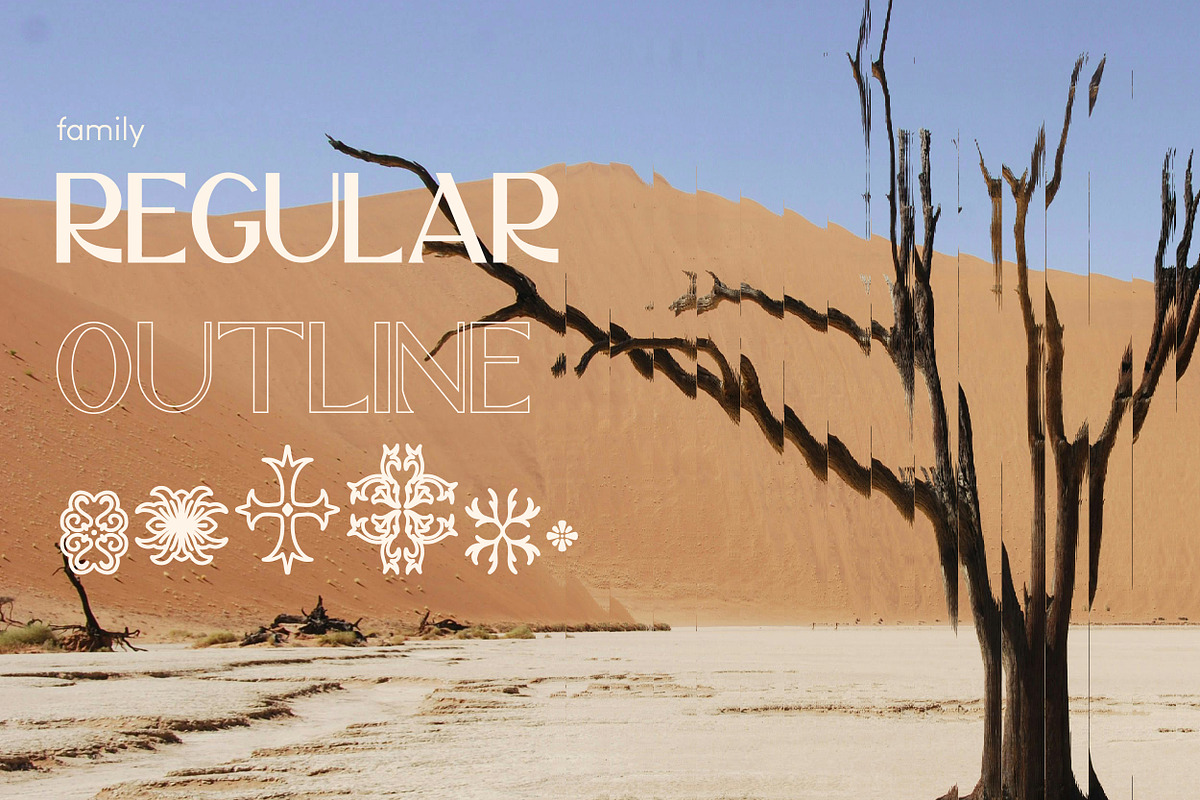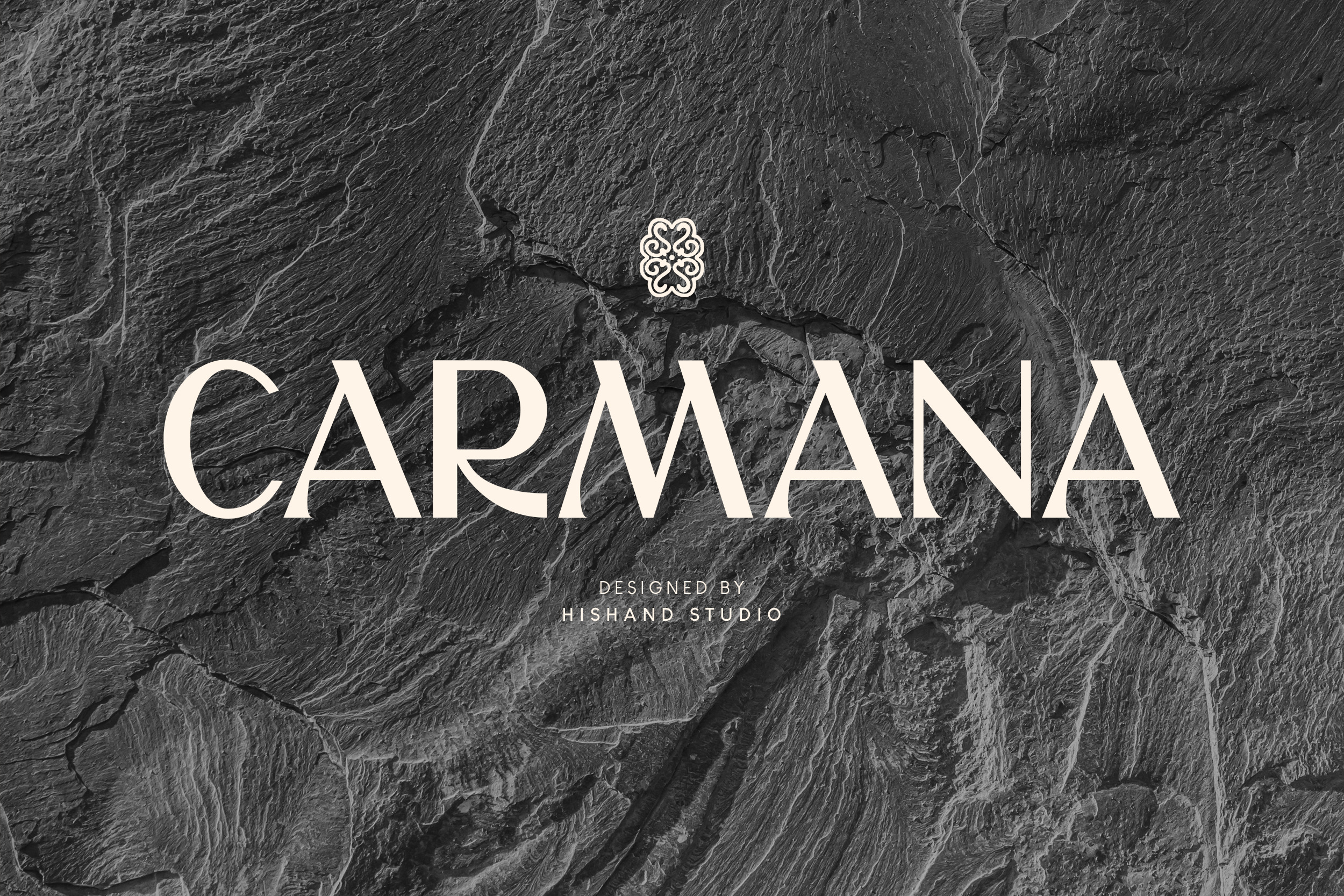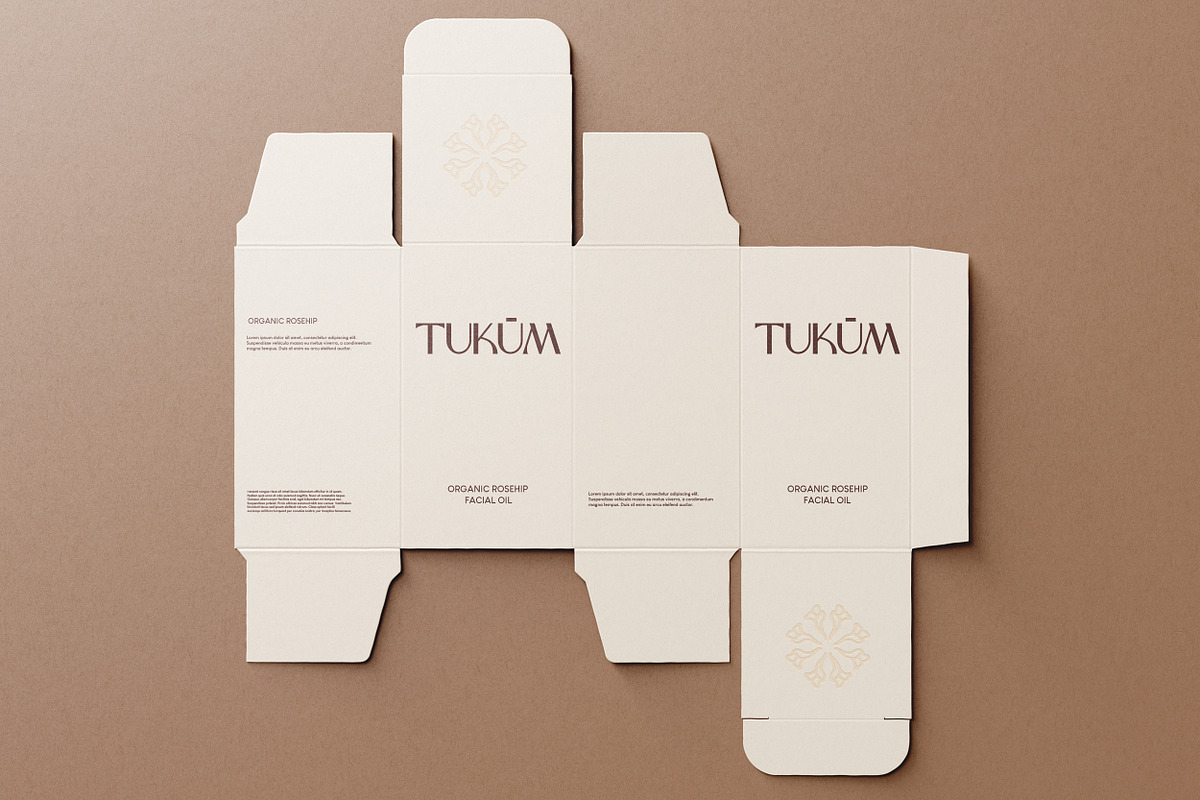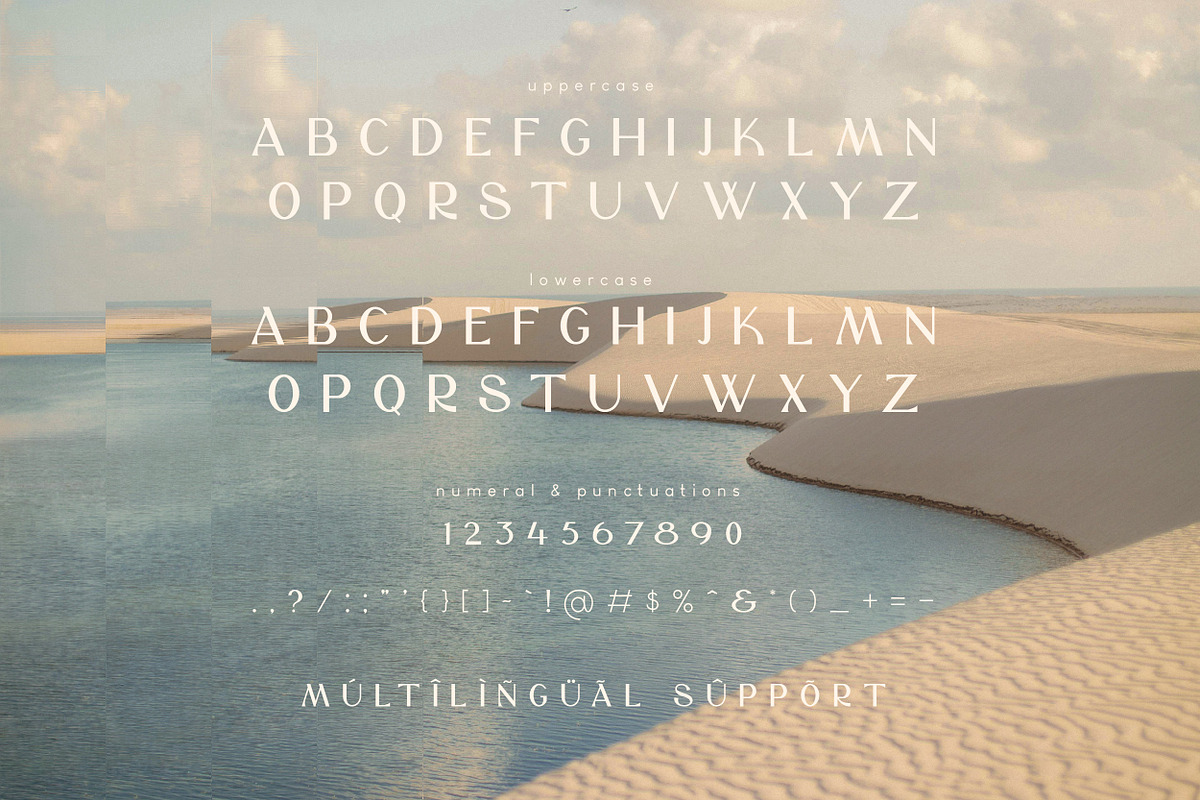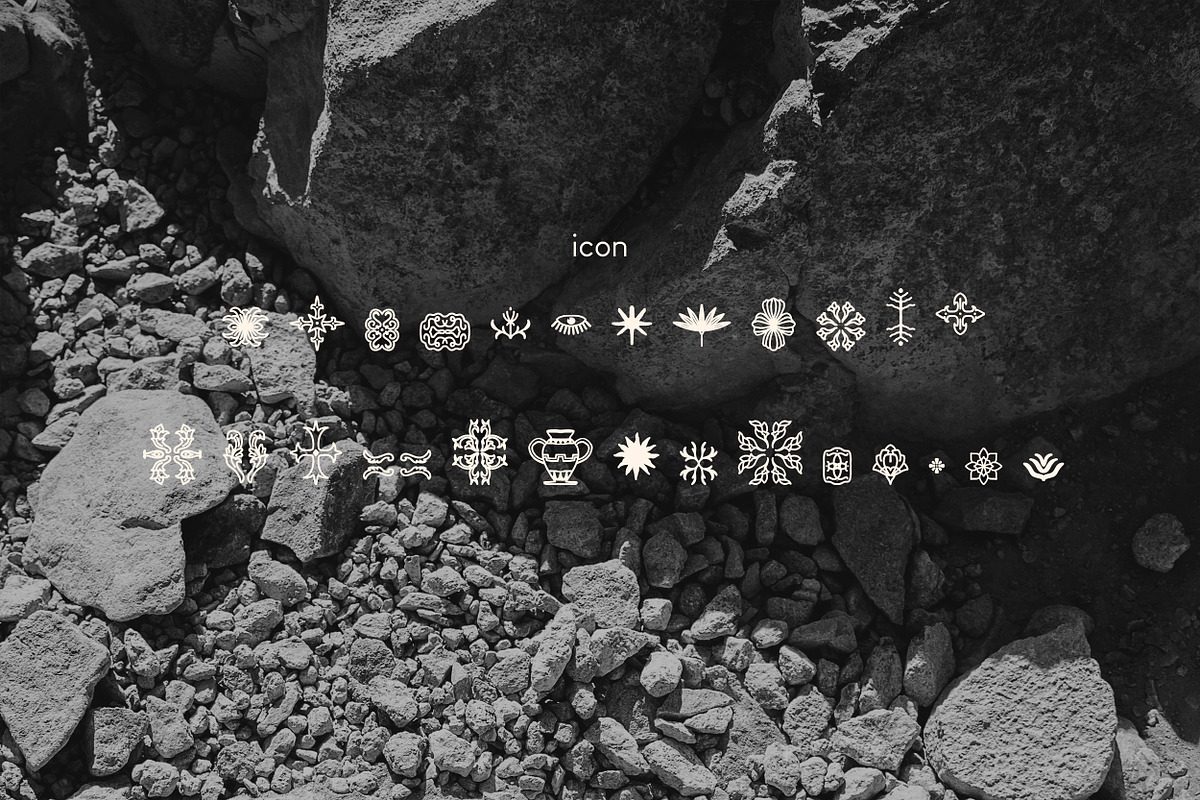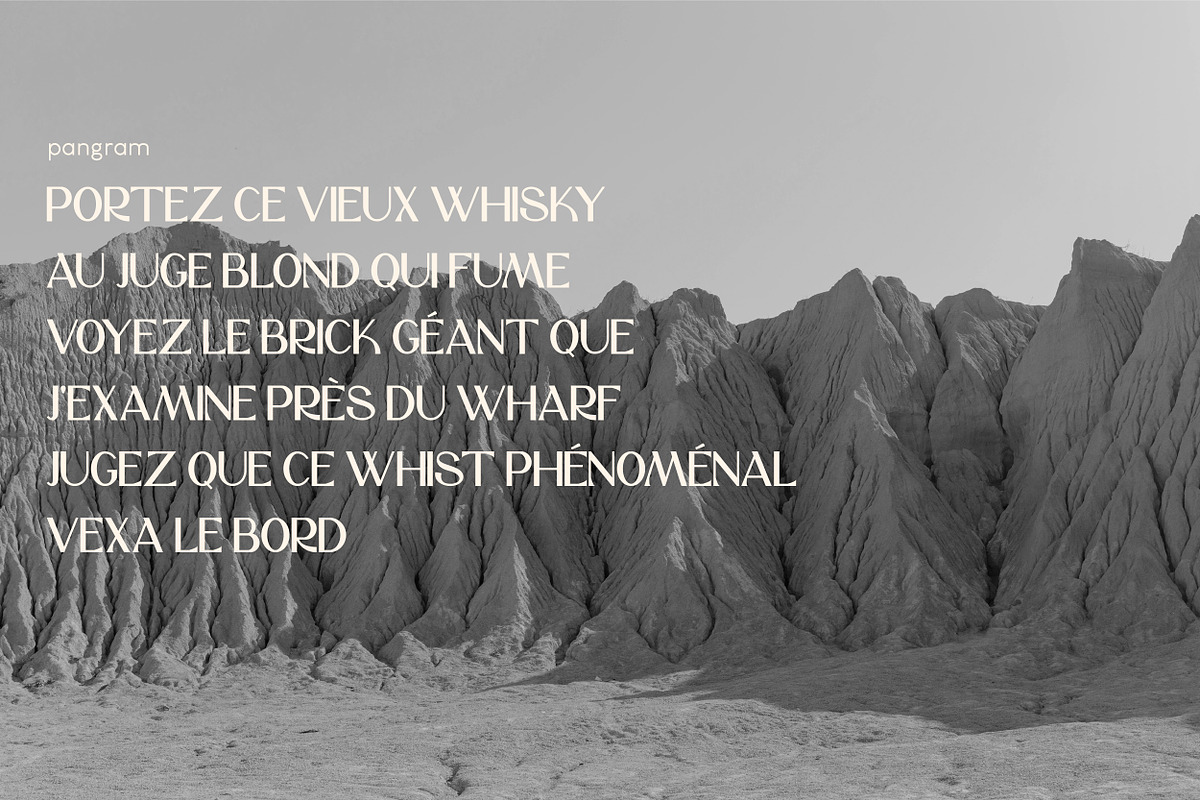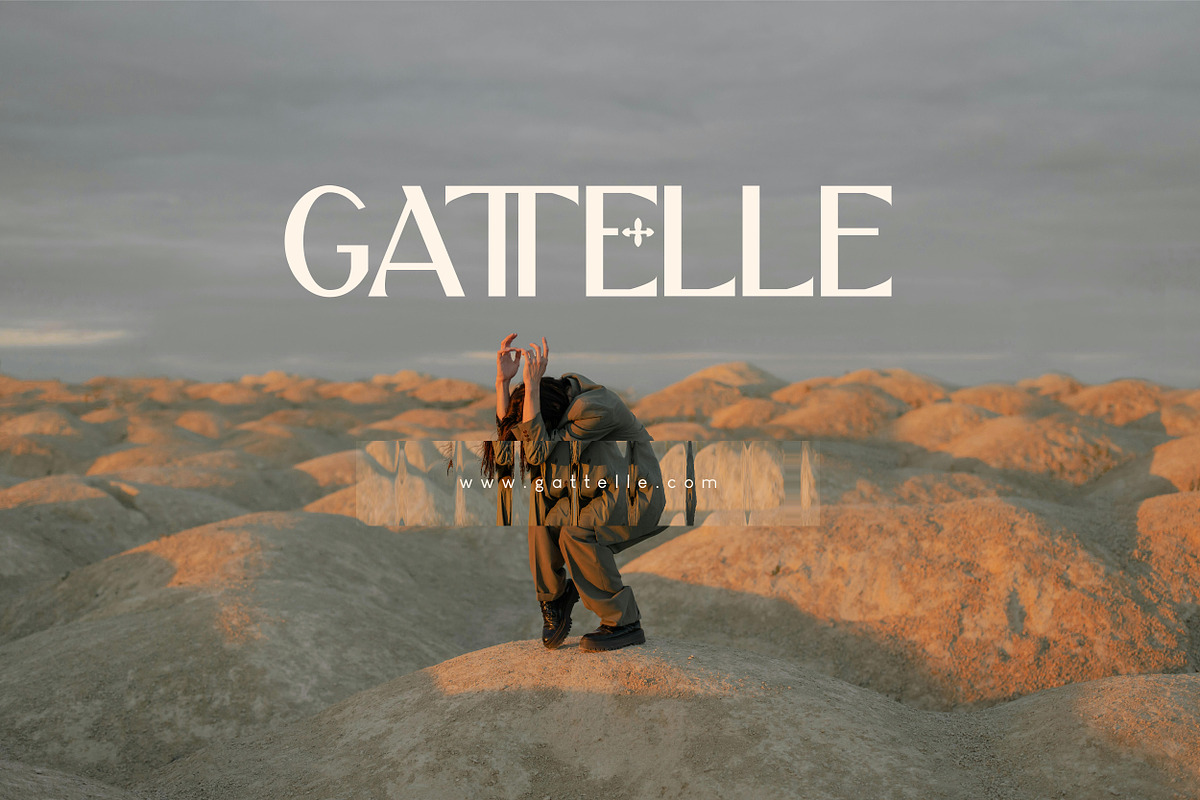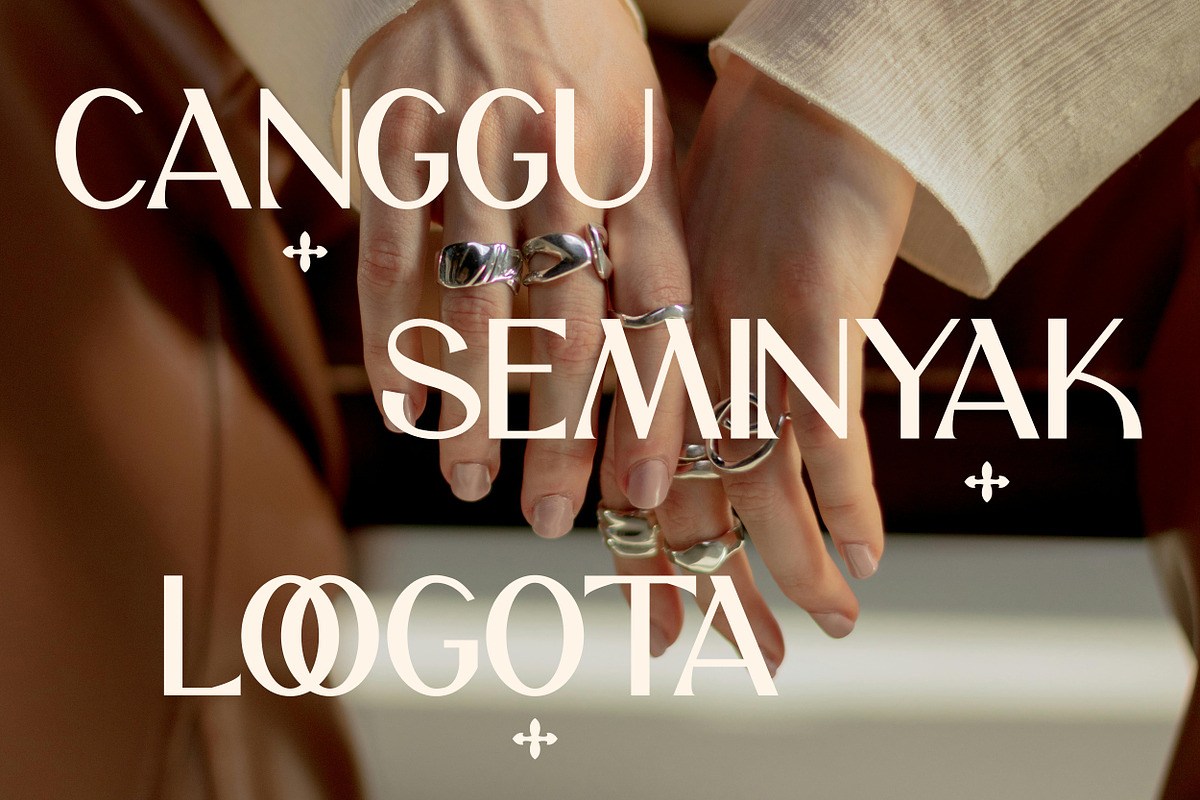
Carmana Sans Display Font
Carmana is a stylish, modern font with sharp angles, clean lines, and elegant curves. It combines classic sans-serif elements with contemporary geometric details, creating a refined and luxurious look.
Perfect for branding, editorial design, logos, and high-fashion projects, Carmana exudes sophistication and exclusivity. Its unique letterforms, subtle cut-out strokes, and smooth curves add a distinctive and elegant touch. Complete with
- alternates
- regular
- outline
- icon
- kerning
- multilingual support